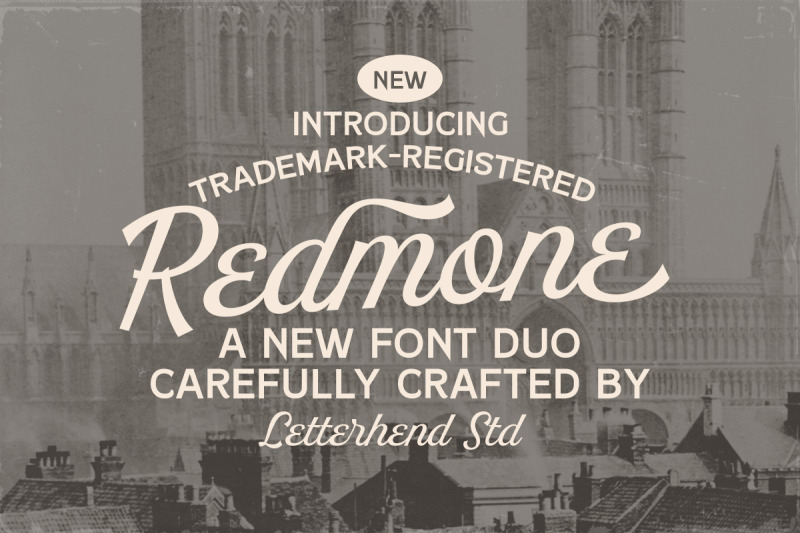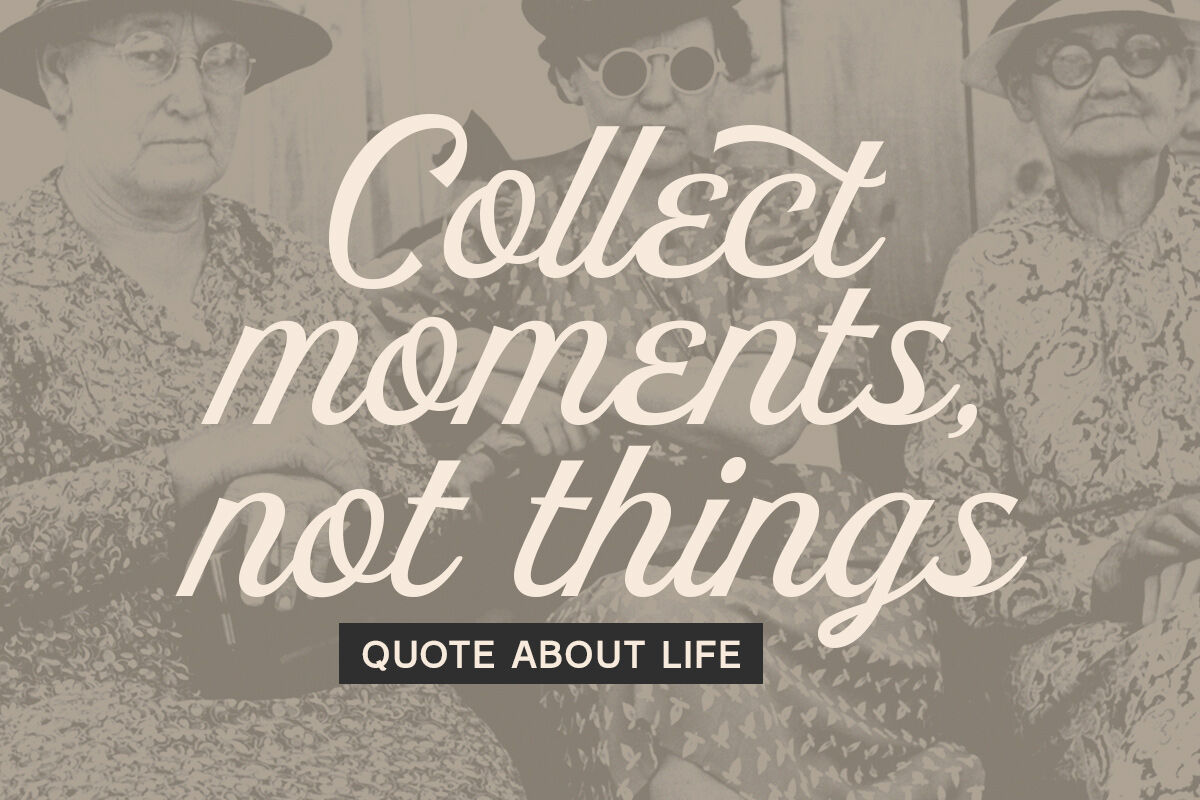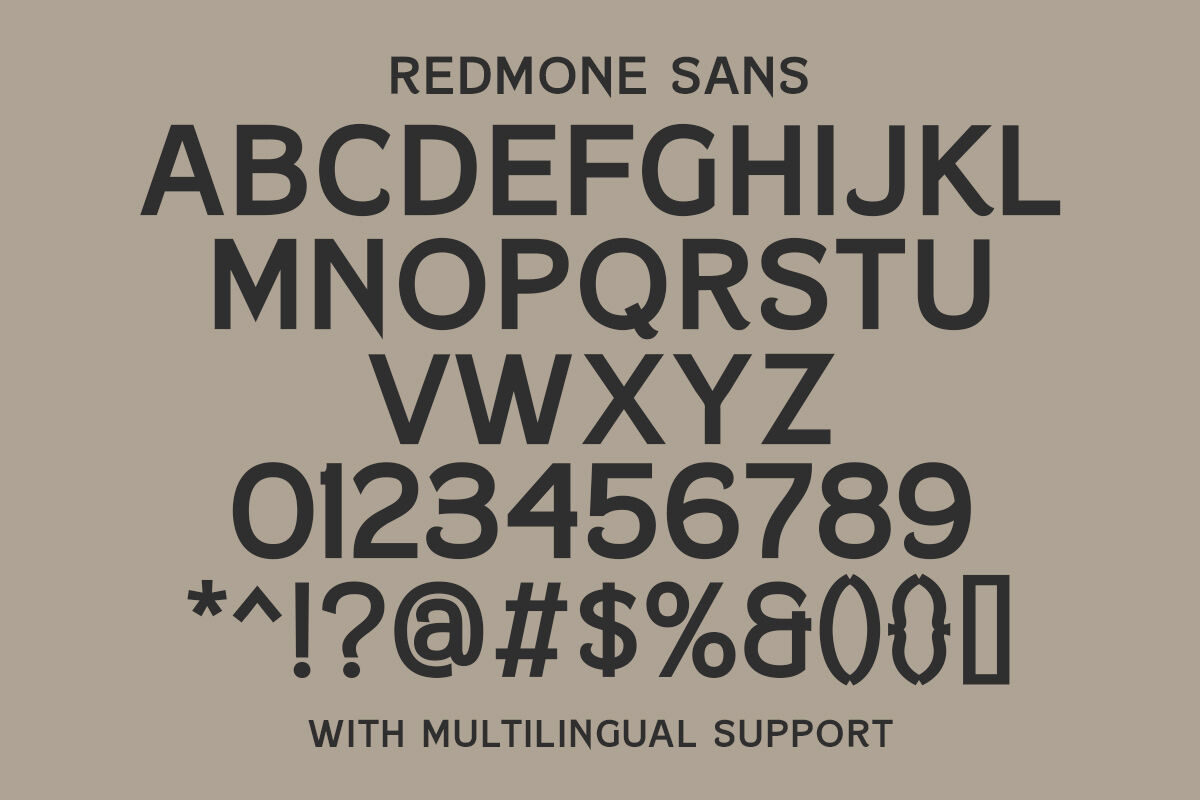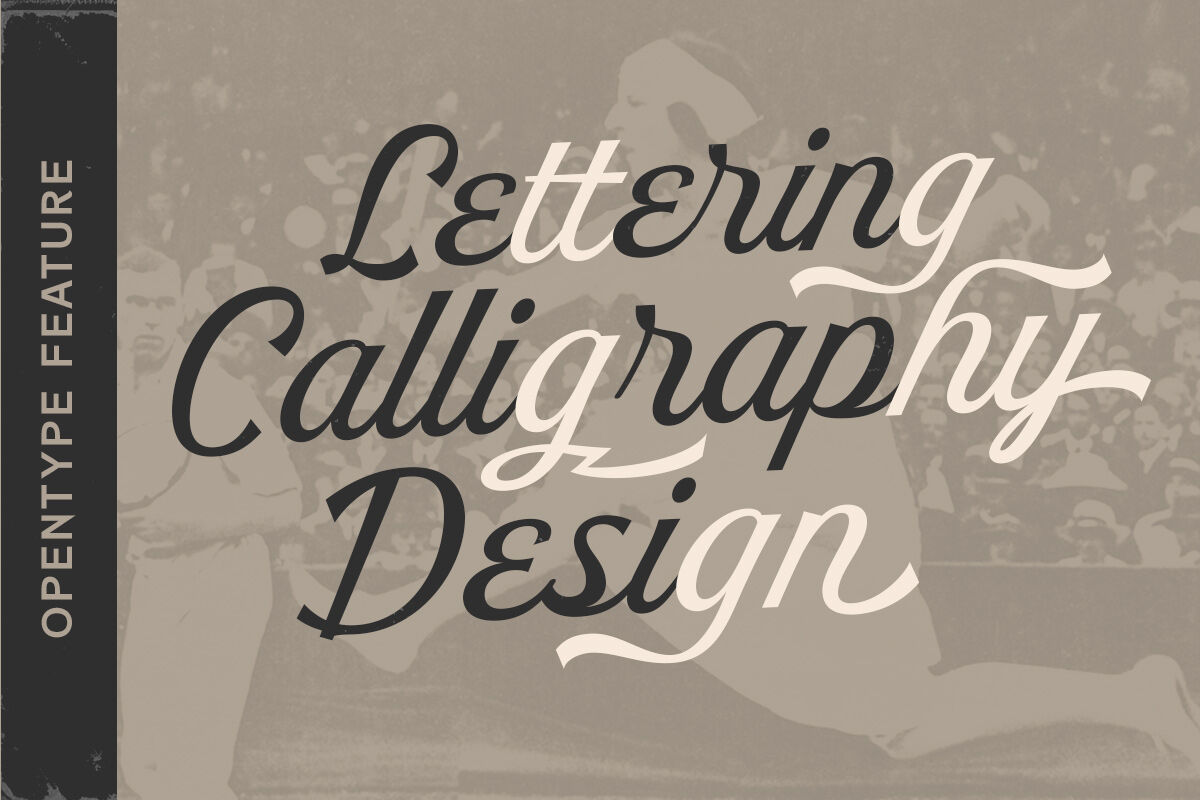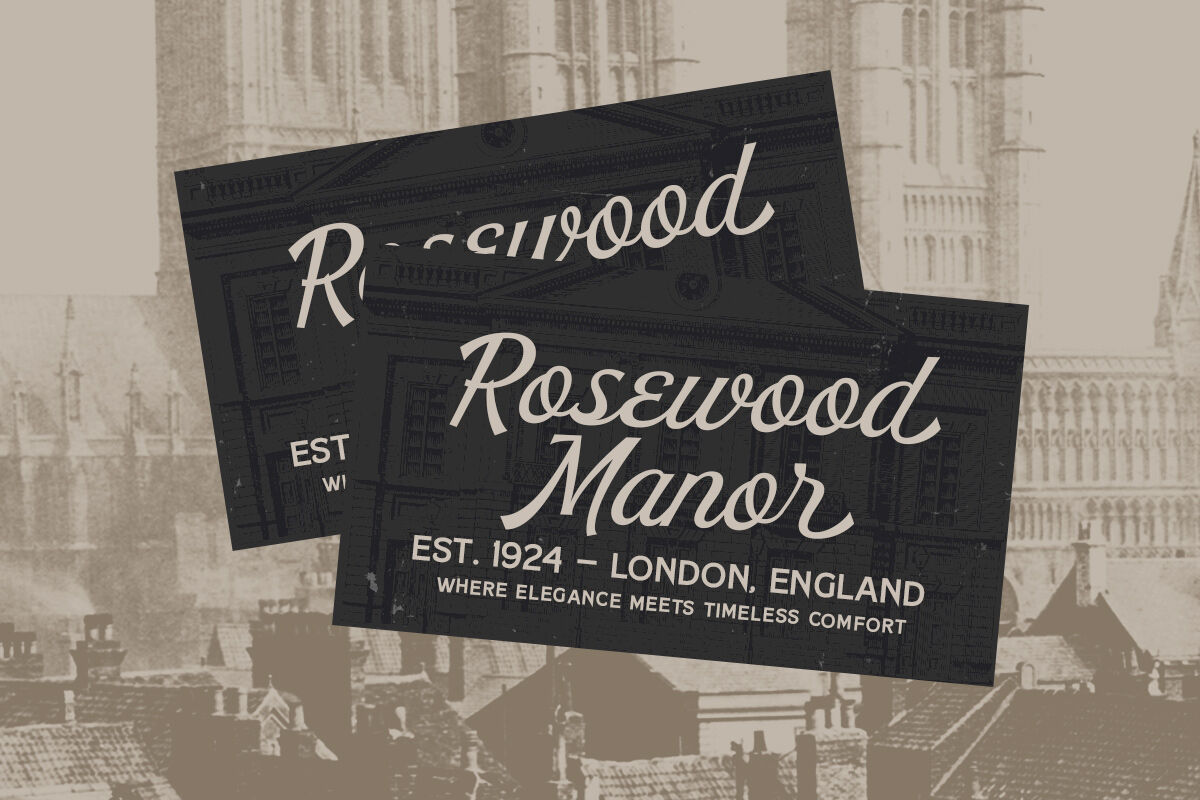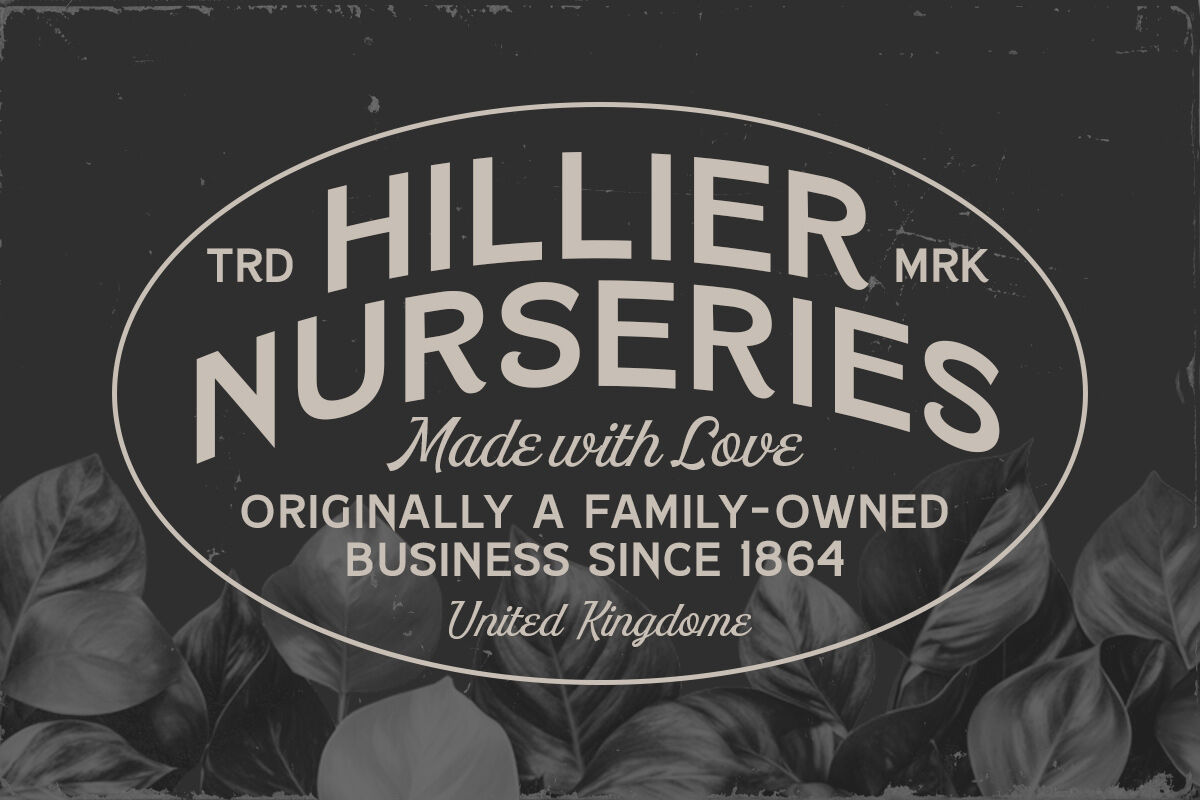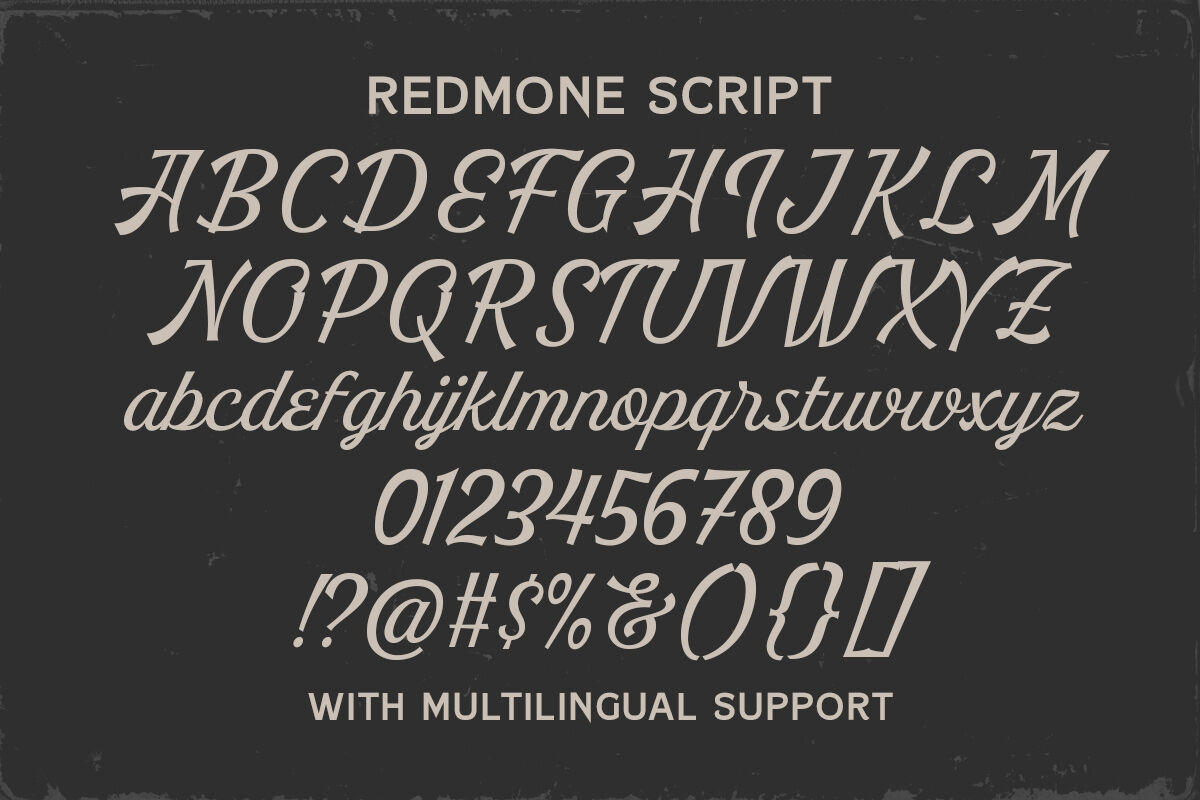
Redmone Font Duo
Redmone is a carefully crafted font duo that blends an elegant script with a bold sans-serif, bringing a perfect balance of vintage charm and modern versatility. Designed with attention to detail, it evokes a dramatic yet timeless feel—like stepping into an old city full of warmth, romance, and character. Features : Sans & Script Uppercase & lowercase Numbers and punctuation Alternates/Ligatures Multilingual Support PUA encoded We highly recommend using a program that supports OpenType features and Glyphs panels like many of Adobe apps and Corel Draw, so you can see and access all Glyph variations. PLEASE READ THIS: To use alternate charactter/swash you have to use opentype. For accessing opentype feature, kindly check this link letterhend.com/tutorials/using-opentype-feature-in-any-software/ For business collaboration inquiries, please contact us at letterhend@gmail.com. For feedback and any other question, please contact our support team at admin@letterhend.com. We'll happy to help you!
Redmone Sans
Redmone